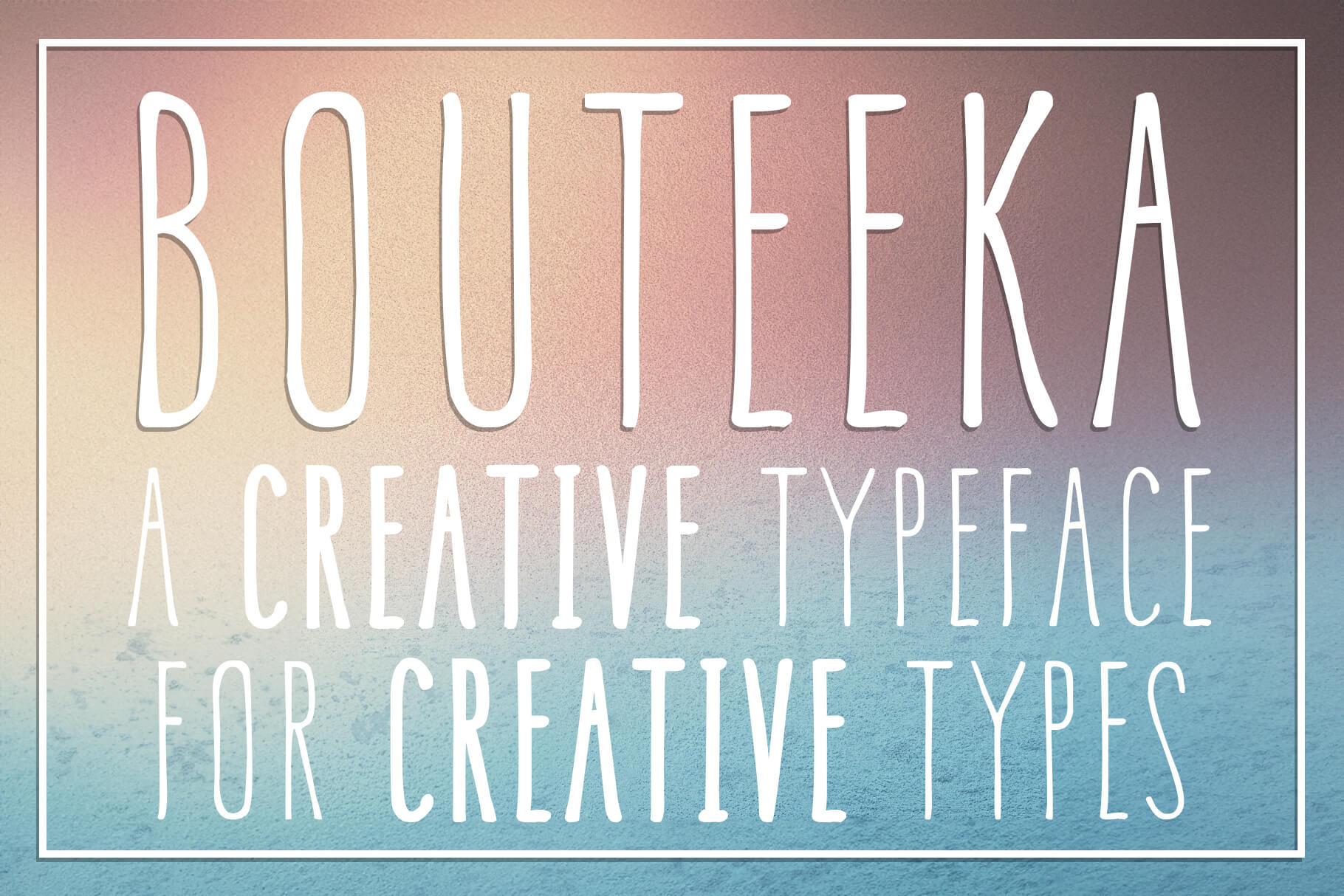
Bouteeka Font
Experience the allure of Bouteeka Typeface, a meticulously crafted font that seamlessly blends slender elegance with artistic charm. This font variation offers a collection of three weights—Light, Regular, and Bold—alongside their accompanying italic counterparts, providing a versatile range of typographic possibilities.
With its delicate curves and refined strokes, Bouteeka Typeface exudes a sense of understated beauty. The font's slightly imperfect aesthetic adds a touch of handcrafted uniqueness, making it an ideal choice for designers seeking to infuse their projects with a distinct and artistic flair.
Perfectly suited for a myriad of design applications, Bouteeka Typeface shines in editorial layouts, branding projects, wedding stationery, social media graphics, and beyond. Its narrow structure allows for efficient space utilization while maintaining exceptional legibility and readability.
Elevate your designs with Bouteeka Typeface and unlock a world of refined sophistication. Let the slender elegance and artistic charm of this font variation captivate your audience and leave a lasting impression.